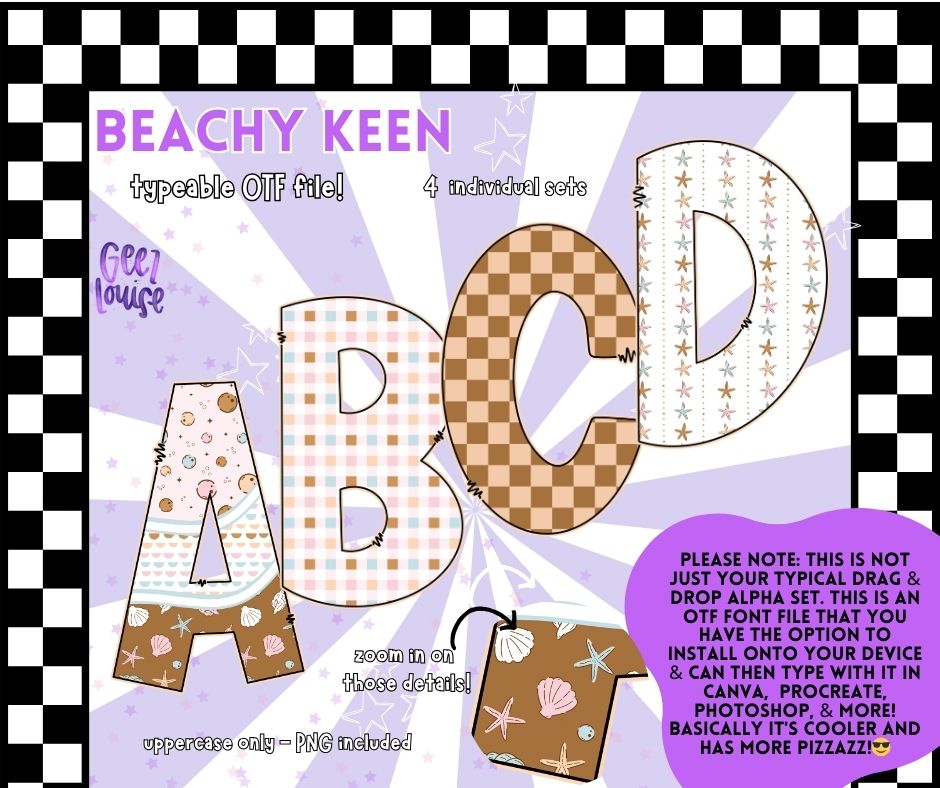
Beachy Keen (4 sets) - Coastal OTF Font + PNG Alpha Set
Bring the breezy vibes to your next project with our Beachy Keen OTF Font! 🌊🐚 This adorable beach-themed alphabet is full of pastel checkers, seashells, sand dollars, and starfish — perfect for summer sublimation projects, vacation shirts, beach bags, and coastal party decor.
✔️ Uppercase letters included for bold, summery designs
This fun and colorful beach font will add a splash of seaside sweetness to your projects — no embroidery effects here, just pure sunshine magic! ☀️